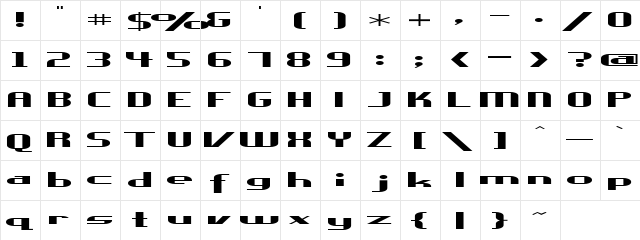
Fallover Regular
Design Context for Fallover Typeface
Fallover is a composed and adaptable typeface that performs quietly and consistently across a wide range of design contexts.